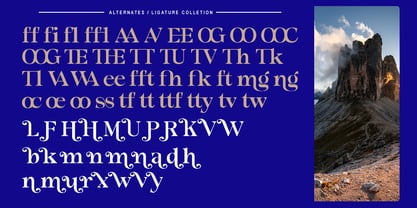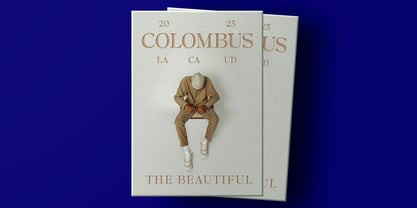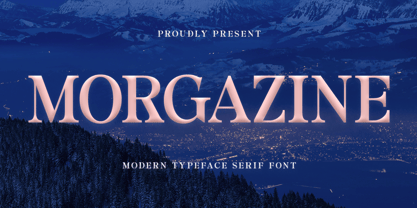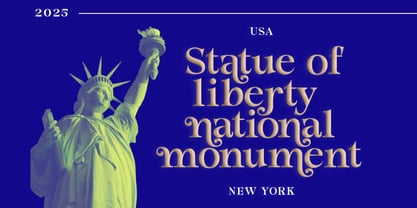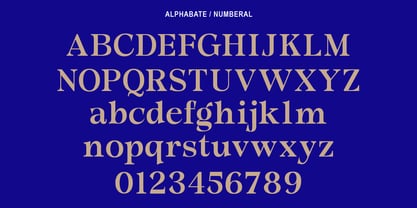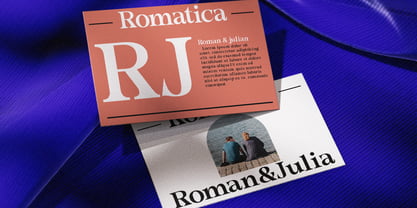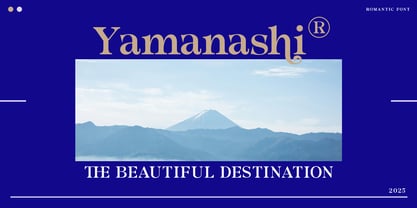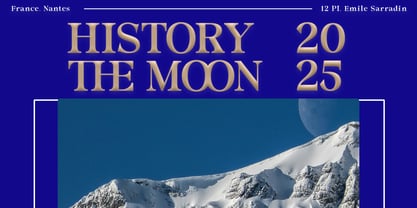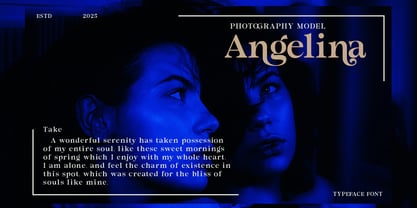
Morgazine
by Propertype
The Morgazine Font Family was designed by Nadia Auliana and published by Propertype. Morgazine contains 72 styles and family package options. More about this family
MORGAZINE is a serif font with an elegant and classic design, crafted to convey a luxurious and margarine impression. This font is typically characterized by its refined serif details, sharp features, and balanced proportions, making it perfect for projects that require a graceful and sophisticated look.
Fonts like margarine are commonly used in graphic design projects for logos, posters, business cards, and more, aiming to highlight a romantic and premium atmosphere.
Designers: Nadia Auliana
Foundry: Propertype